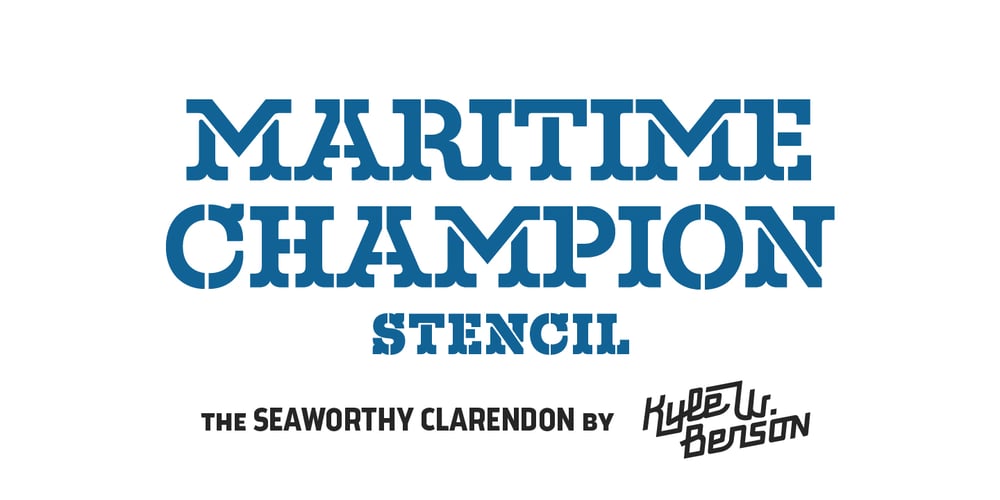
Maritime Champion Stencil
Maritime Champion Stencil font
Maritime Champion Stencil Font Family was designed by Kyle Benson and published by Kyle Wayne Benson. Maritime Champion Stencil contains 4 styles and family package options. Make no mistake, Maritime Champion is not simply seaworthy. This peacoat grubbing, all hands on decking, accordion serenading font is not for the faint of heart. He’s all caps all the time. Even the lightest of his six weights is enough to anchor a Man-o-War in any Caribbean maelstrom. This stencil set includes four weights to accompany the existing four shoreline styles and six regular weights. It’s an all caps family that includes lots of language options and opentype fractions.